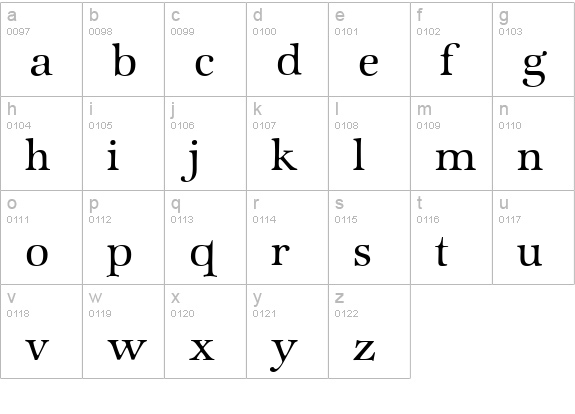
ZabriskieInternational-Regular is the standard, neutral variant in the ZabriskieInternational typeface family \xE2\x80\x94 well suited to general body text, paragraphs, and standard typographic work.
ZabriskieInternational-Regular font is a versatile and modern typeface that combines elegance with a touch of sophistication. Its clean lines and balanced proportions make it perfect for a wide range of design projects, from branding to editorial design. The typeface exudes a sense of professionalism and refinement, making it a popular choice among designers seeking a timeless and classic look. What makes ZabriskieInternational-Regular font even more appealing is that it is available for free download at FontsMarket.com. This means that you can easily access this high-quality font without any cost, making it a valuable resource for both professionals and hobbyists alike. Whether you are working on a corporate project or a personal design, ZabriskieInternational-Regular font is sure to elevate your work with its elegance and style. Download it today and give your designs a touch of sophistication.